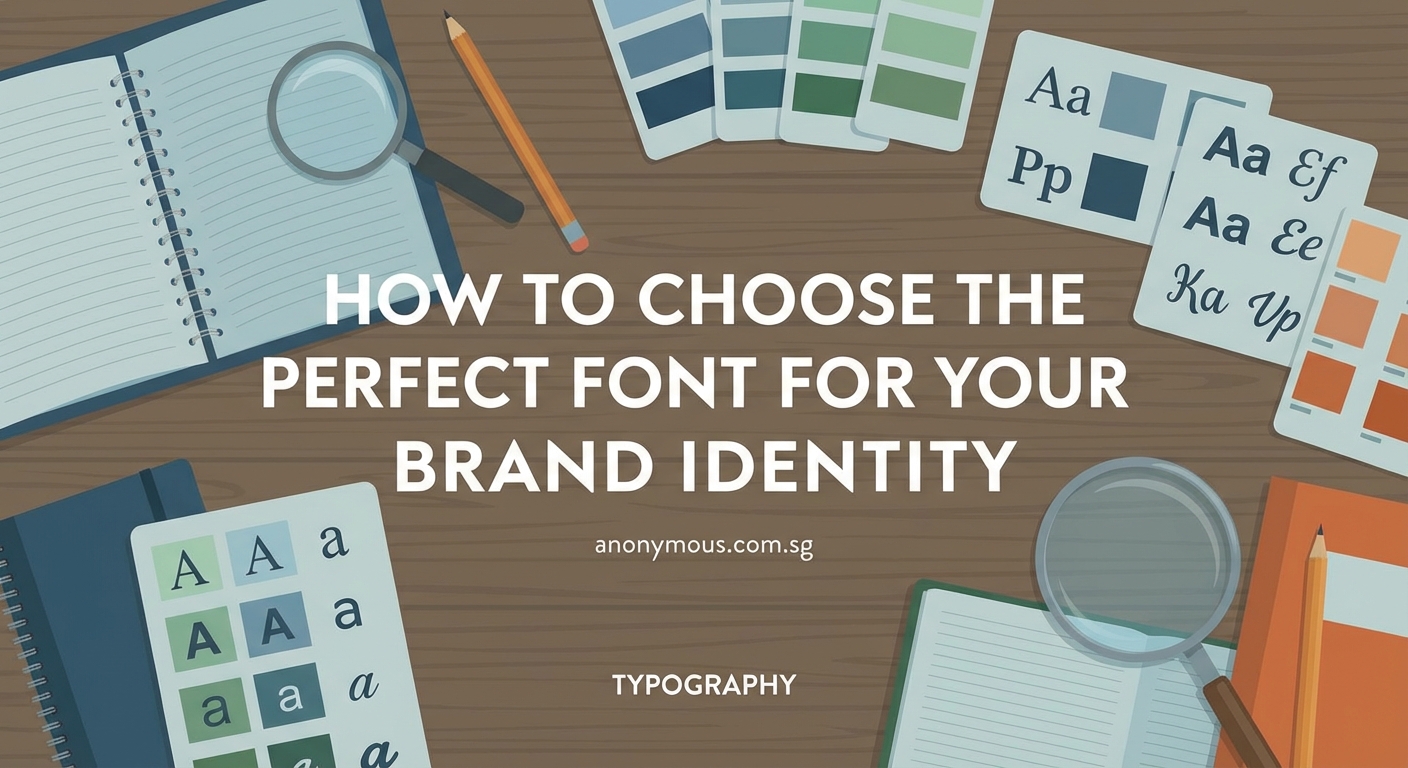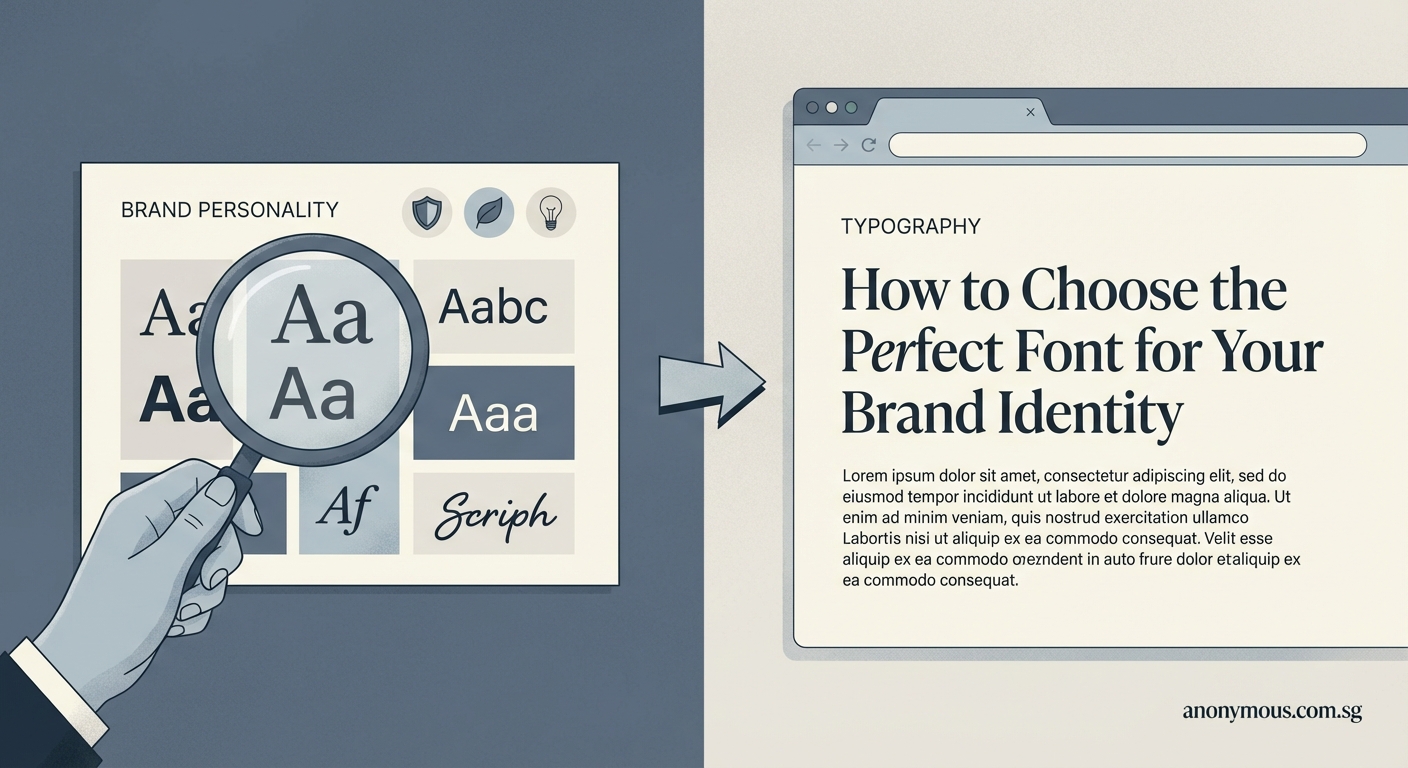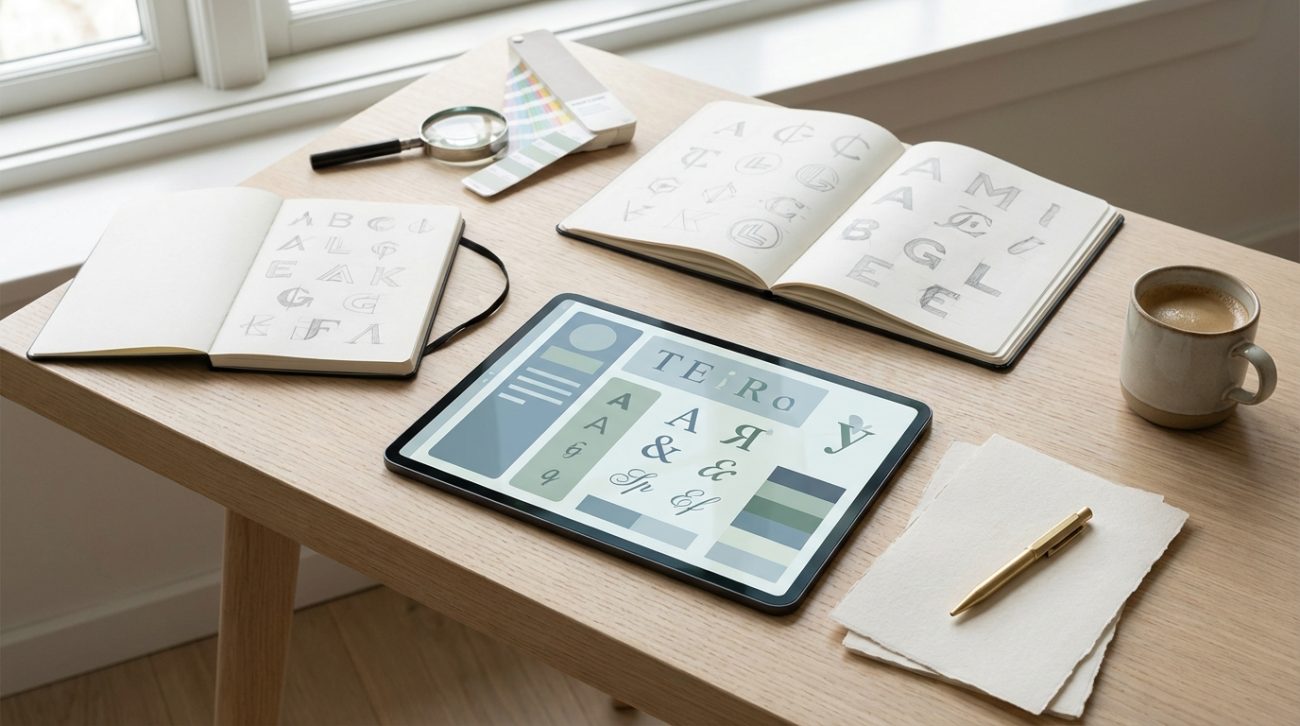
How to Choose the Perfect Font for Your Brand Identity
Your brand’s font choices speak before your words do. They tell customers whether you’re serious or playful, affordable or premium, traditional or cutting edge. And unlike your logo or color palette, typography shows up everywhere: your website, business cards, social media posts, packaging, and every email you send.
Most small business owners freeze when faced with thousands of font options. Should you pick something classic? Modern? Handwritten? The paralysis is real, and the stakes feel high because changing fonts later means redoing everything.
Key Takeaway
Choosing fonts for your brand requires matching typography to your brand personality, selecting two to three complementary typefaces, ensuring readability across all platforms, and testing combinations before committing. Focus on fonts that reflect your values, work at multiple sizes, and remain legible on screens and print. Avoid trendy options that age poorly and always verify licensing for commercial use.
Understanding font psychology and brand personality
Fonts carry emotional weight. Serif fonts like Times New Roman or Garamond feel established and trustworthy. Banks and law firms love them for good reason. Sans serif fonts like Helvetica or Open Sans read as modern and approachable. Tech companies and startups gravitate toward clean lines.
Script fonts suggest elegance or creativity but can look amateurish if overused. Display fonts make bold statements but tire readers quickly in body text.
Your font choice should mirror your brand values. A children’s toy company using a rigid corporate serif sends mixed signals. A financial advisor using a playful handwritten font undermines credibility.
Write down three to five words that describe your brand personality. Are you professional, warm, innovative, luxurious, or accessible? Match those traits to font categories that naturally express them.
The practical framework for selecting brand fonts
Here’s a step by step process that removes guesswork:
1. Choose your primary font first. This workhorse appears in headlines, your logo, and major design elements. It carries the strongest personality and should be distinctive enough to be memorable but versatile enough for multiple uses.
2. Select a secondary font for body text. Readability trumps personality here. Your audience needs to consume paragraphs of information without eye strain. Test fonts at the actual sizes you’ll use them.
3. Add an accent font only if needed. Many strong brands use just two fonts. A third option works for special callouts, quotes, or decorative elements but isn’t mandatory.
This hierarchy prevents the chaotic look that happens when every design element screams for attention.
Font pairing strategies that actually work
Pairing fonts feels like magic when it works and disaster when it doesn’t. These combinations create harmony:
Contrast pairing: Combine a serif headline font with a sans serif body font. The difference creates visual interest while maintaining clarity. Think Georgia headers with Arial paragraphs.
Same family pairing: Use different weights from one font family. Montserrat Bold for headlines and Montserrat Regular for body text keeps things cohesive while adding hierarchy.
Mood matching: Pair fonts from the same era or style movement. A geometric sans serif like Futura pairs beautifully with another modernist font but clashes with ornate Victorian serifs.
The mistake most beginners make is pairing fonts that are too similar. If readers can’t immediately tell the difference between your headline and body fonts, the pairing adds no value.
Technical considerations that beginners miss
Licensing will bite you if ignored. Many free fonts prohibit commercial use or require attribution. Google Fonts offers hundreds of options licensed for commercial projects at no cost. Always read the license before finalizing your choice.
Web fonts and print fonts behave differently. A font that looks crisp in print might render poorly on screens at small sizes. Test your selections on actual devices, not just your design software.
File formats matter too. Web projects need WOFF or WOFF2 files for fast loading. Print projects work best with OTF or TTF formats. Make sure your chosen fonts come in the formats you need.
“The best font choice is the one your audience doesn’t notice because they’re too busy reading your content. Typography should enhance communication, not distract from it.”
Common font selection mistakes and how to avoid them
Mistake Why It Fails Better Approach
Using too many fonts Creates visual chaos and weakens brand recognition Stick to two or three maximum across all materials
The fonts you choose today will appear in thousands of customer touchpoints over your business’s lifetime. Invest the time now to get them right, and your brand will communicate clearly and consistently from day one.
Your typography is ready. Time to put it to work.